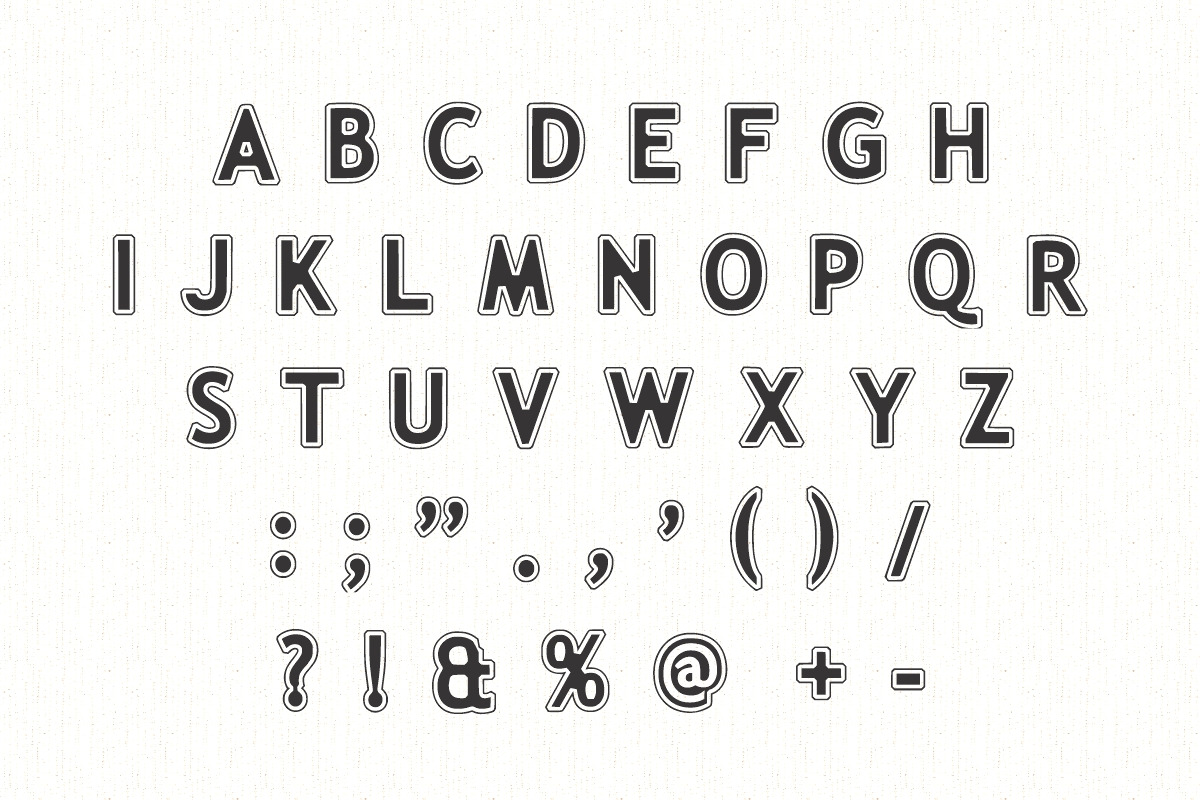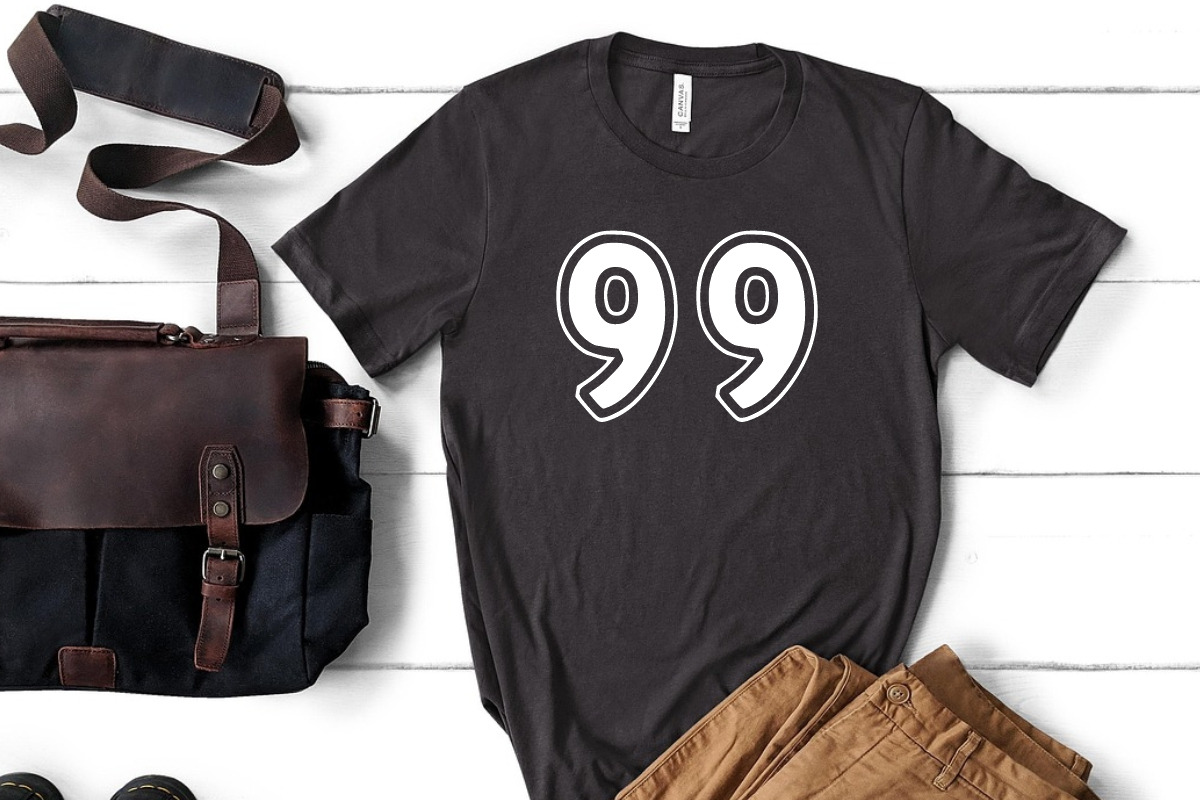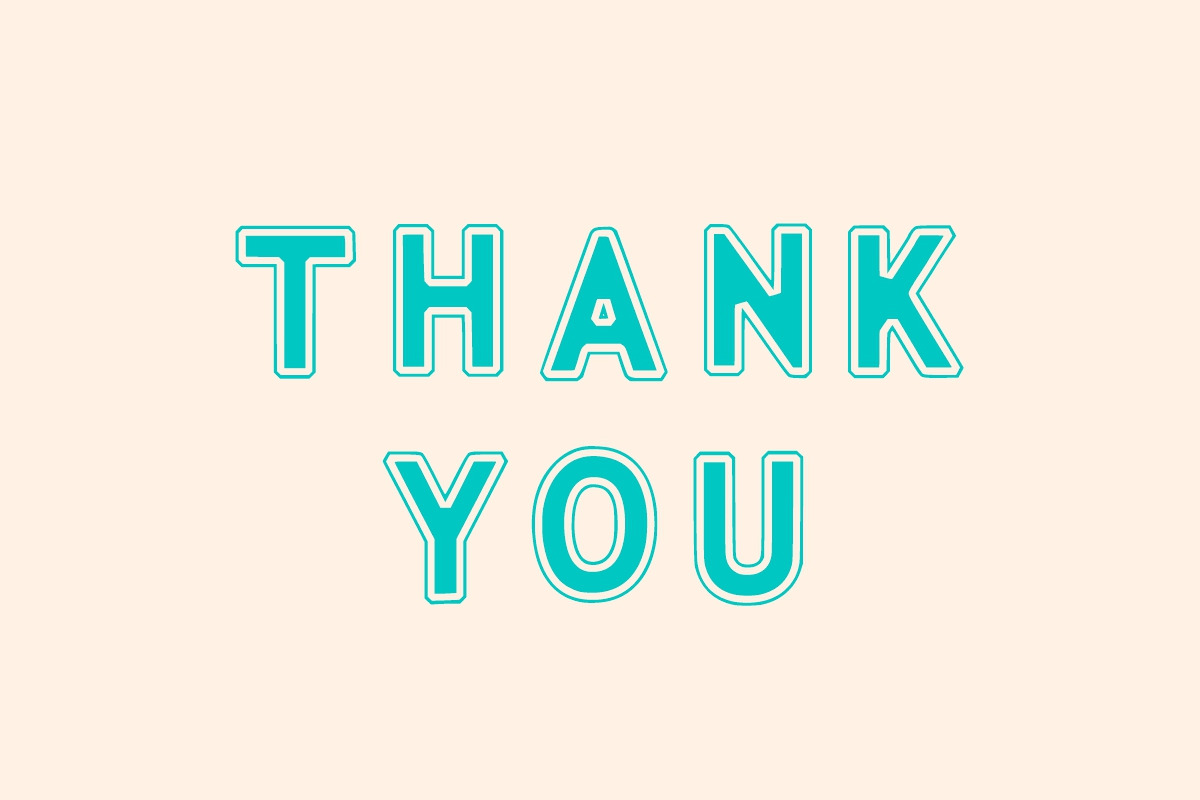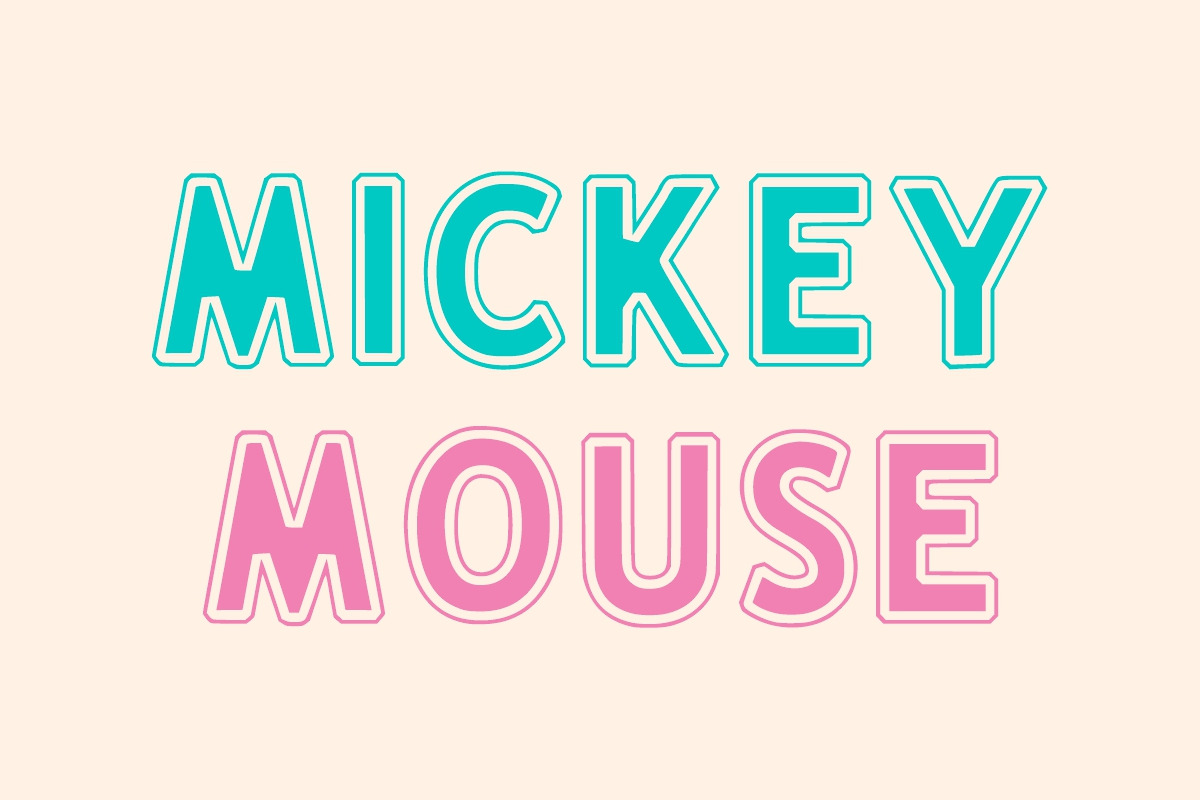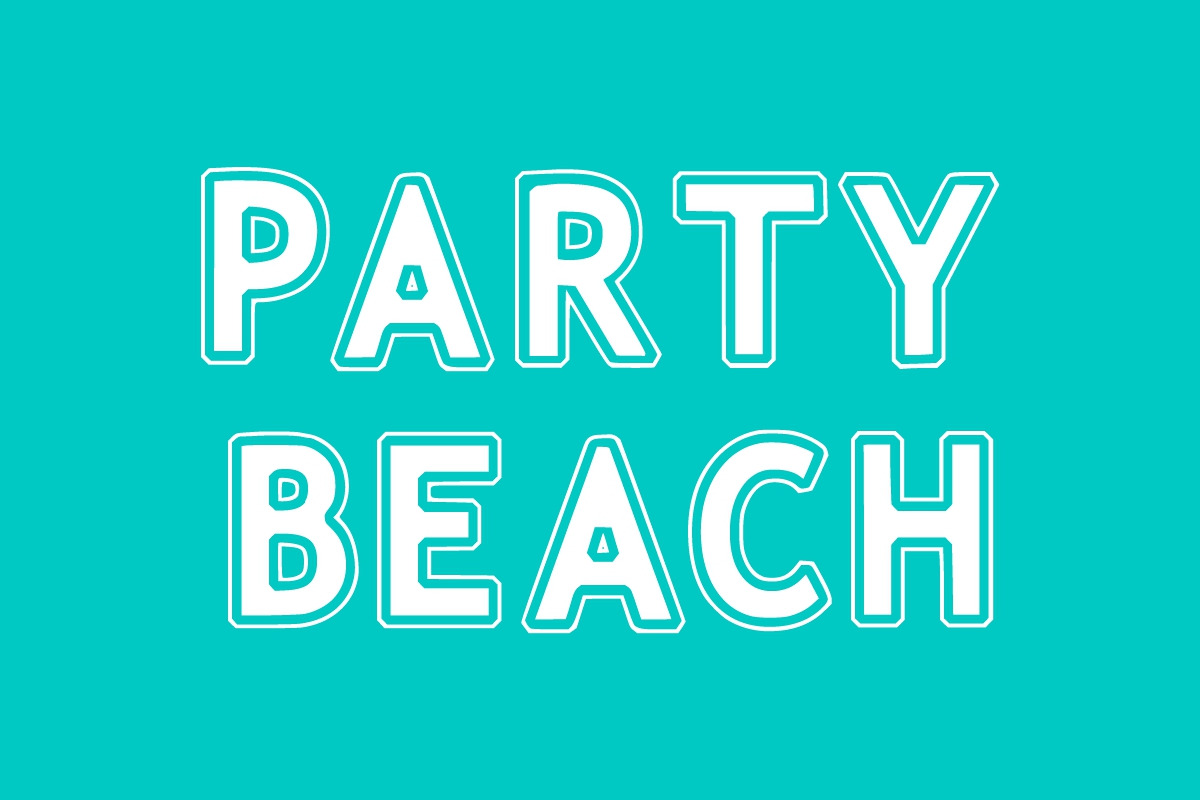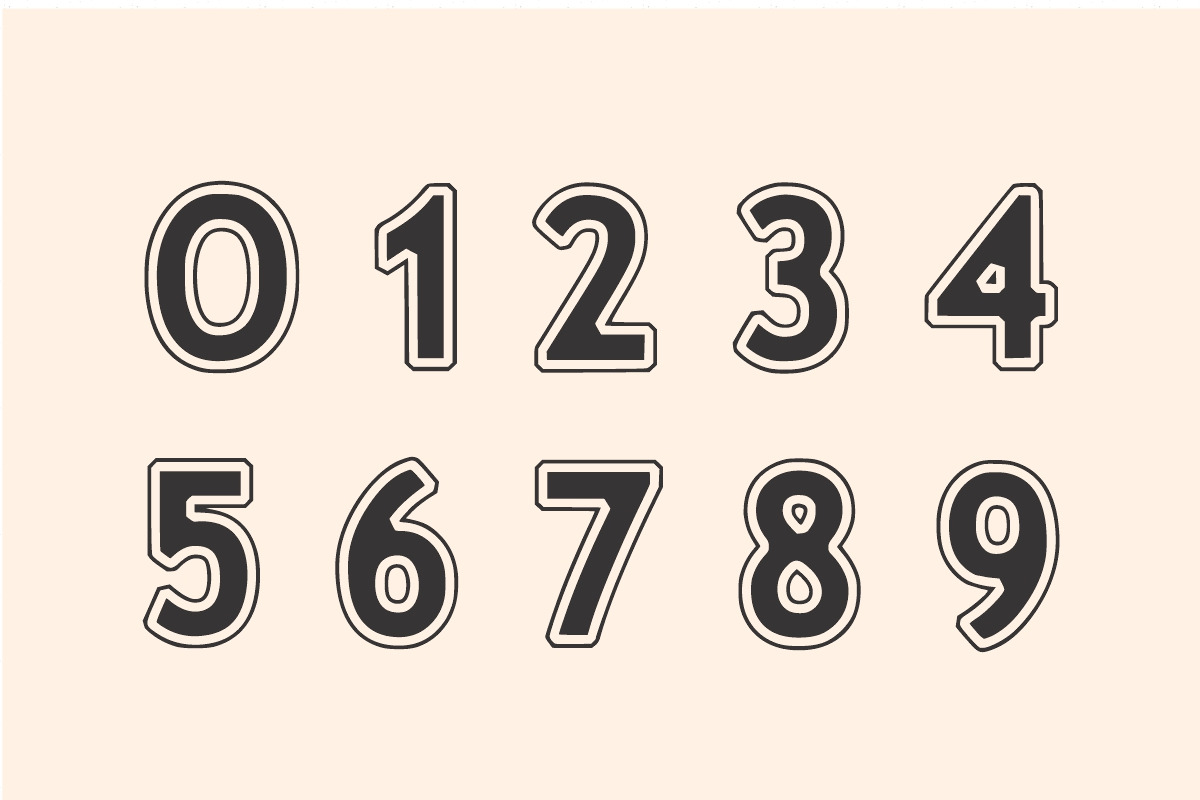
Chunky Grizzy
Chunky Grizzy is a fun and bold outline display font with rounded lettering. It is suitable for any winter and holiday branding project, product packaging, invitations, quotes, t-shirts, labels, posters, or anything that needs a touch of joy.